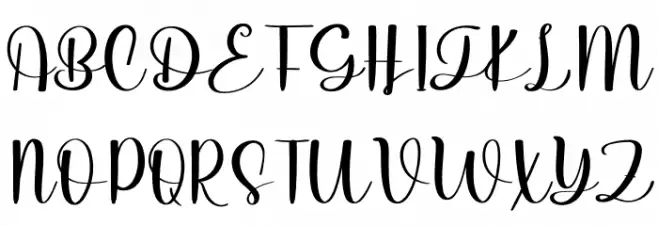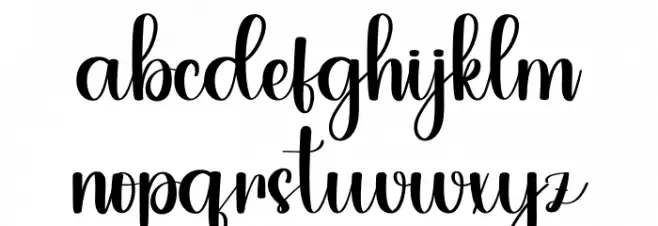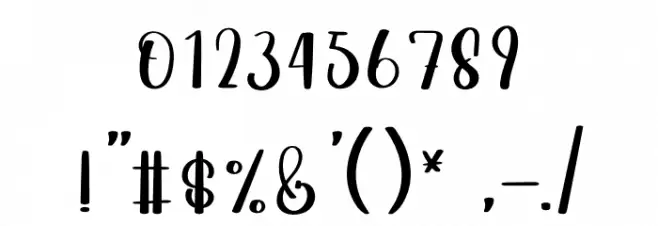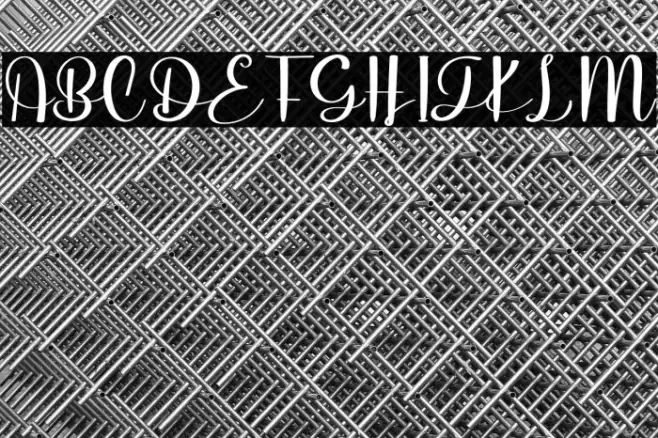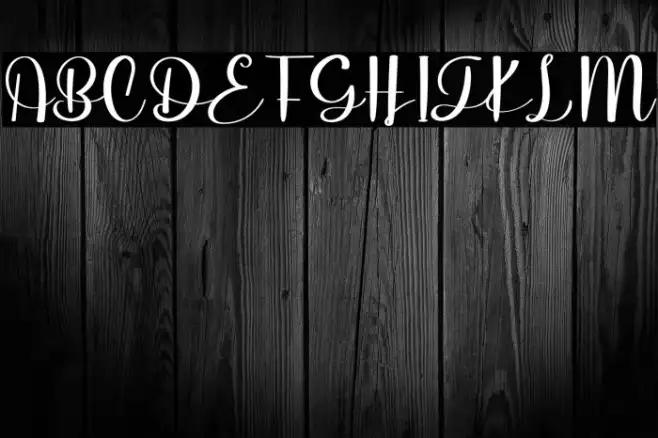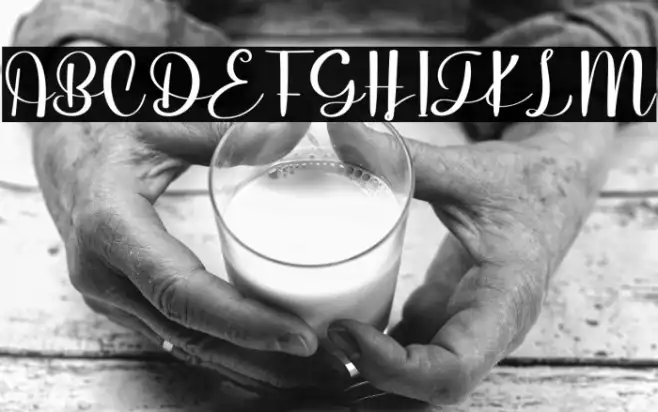
Love Butter
This font features a playful and elegant script style, characterized by its flowing and connected letterforms. The uppercase letters exhibit a graceful loop and swirl, adding a touch of sophistication and charm. The lowercase letters maintain a consistent flow, with some characters extending below the baseline, enhancing the font's dynamic appearance. The numerals are designed with a similar flair, ensuring they blend seamlessly with the alphabet. Special characters are crafted to match the overall aesthetic, making this font versatile for various design needs.
A playful and elegant script font with flowing, connected letterforms.
- Proposed Projects: Ideal for wedding invitations, greeting cards, branding projects, and elegant packaging designs.
- Category: Script
- Overall Style: Decorative
- Use Case: Logos, Invitations, Decorative text